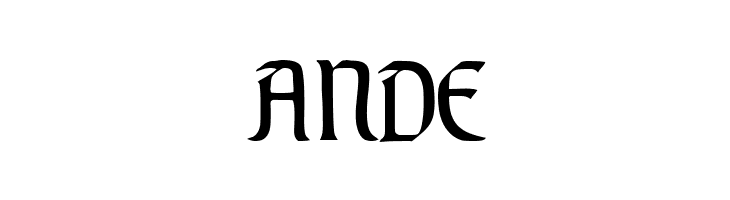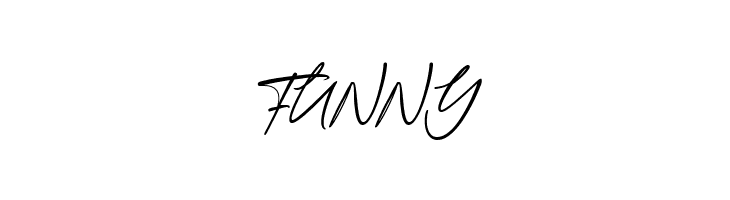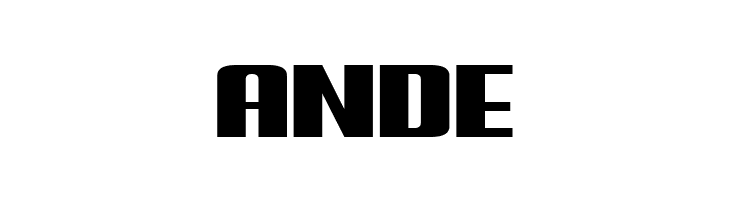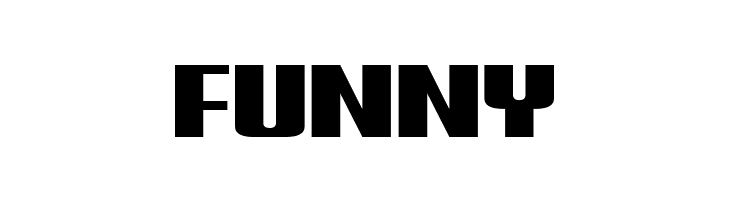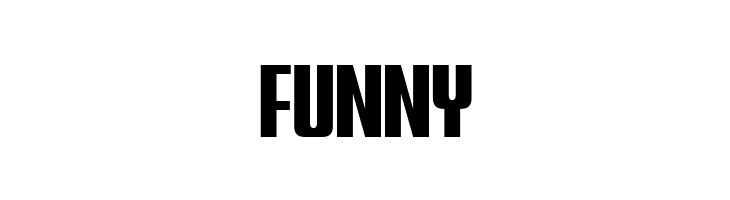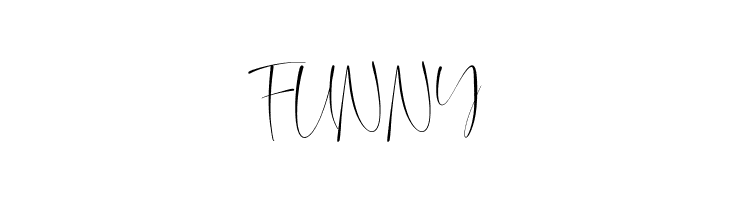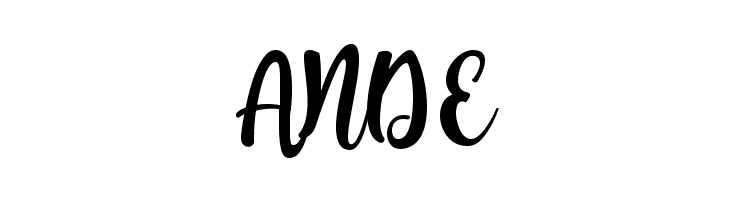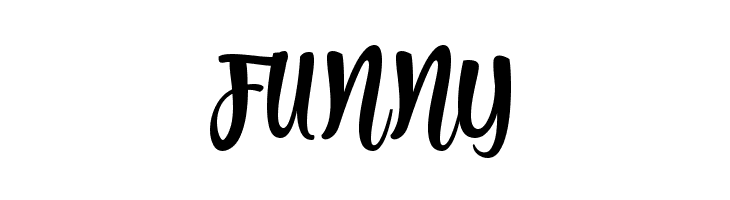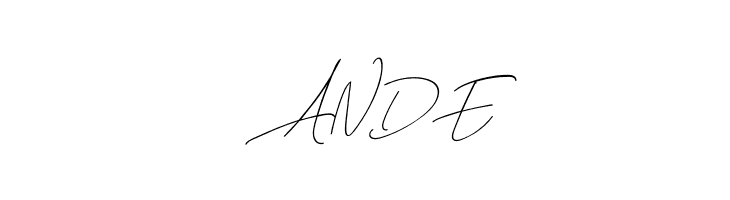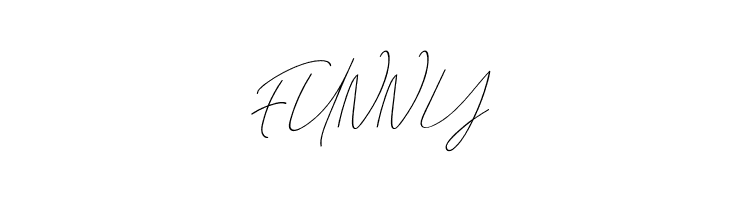
Illustrative construction-themed dingbat font.
A display font composed of assorted illustrated eye motifs.
A pictorial, emblem-based decorative font with shield motifs.
A bold serif font with a classic and authoritative style.
A bold, condensed font with a modern and impactful style.
A bold, modern font with thick, block-like characters for impactful design.
A classic blackletter font with sharp, angular lines and ornate detailing.
A decorative Blackletter font with intricate, angular letterforms and a gothic style.
A fluid, handwritten script font with a casual and elegant style.
A modern, light sans-serif font with low contrast and slightly condensed width.
A modern, light, and italic sans-serif font with sleek, elongated characters.
A clean and modern sans-serif typeface with balanced spacing and consistent stroke width.
A modern sans-serif font with an italic slant, offering a sleek and professional look.
A modern, geometric sans-serif font with a clean and uniform appearance.
A modern, italic sans-serif font with medium weight and normal spacing.
A bold, modern sans-serif font with a clean and cohesive design.
An ornate and bold font with decorative uppercase and strong lowercase characters.
A bold, blackletter-inspired font with sharp, angular lines and a medieval aesthetic.
A modern, elegant handwritten font with fluid, cursive strokes.
A bold, expressive handwritten font with dynamic strokes and decorative flair.
An elegant, cursive handwritten font with a fluid and artistic style.
A modern, sans-serif typeface with clean lines and uniform stroke width.
A modern, light, italic sans-serif font with a sleek and streamlined appearance.
A clean, modern sans-serif font with uniform stroke width and slightly condensed proportions.
A modern, italic sans-serif font with clean lines and balanced proportions.
A modern, clean sans-serif typeface with balanced stroke width and clear readability.
A modern sans-serif font with an italic slant and balanced proportions.
A graceful, handwritten script font with flowing, elegant strokes.
A graceful and elegant cursive script with medium contrast.
An elegant, high-contrast script font with flowing, cursive strokes.
A bold, modern font with thick, uniform strokes and strong visual impact.